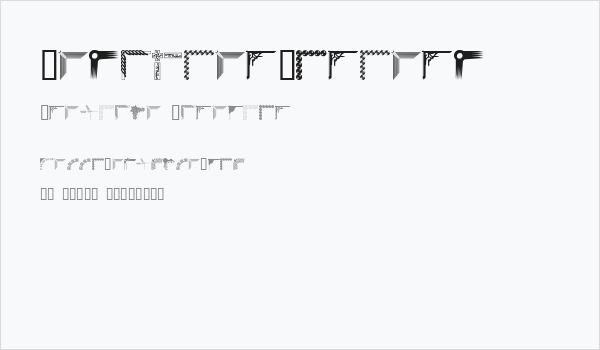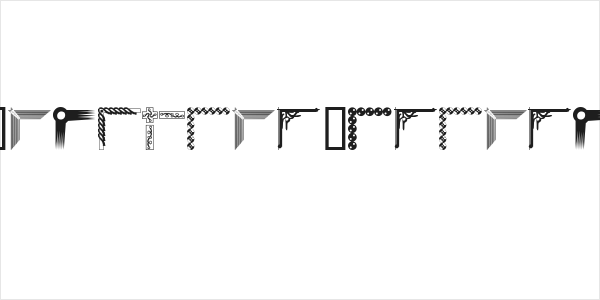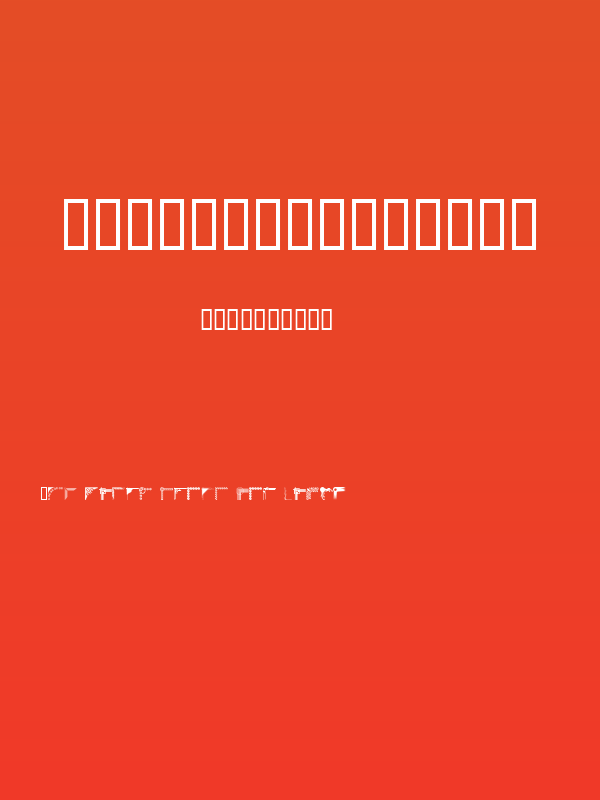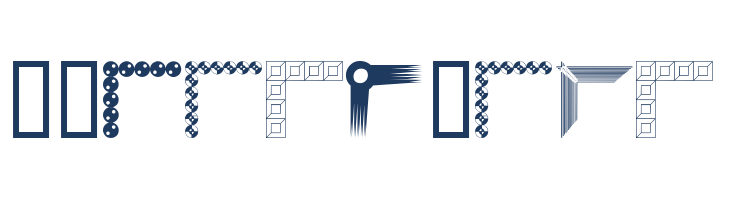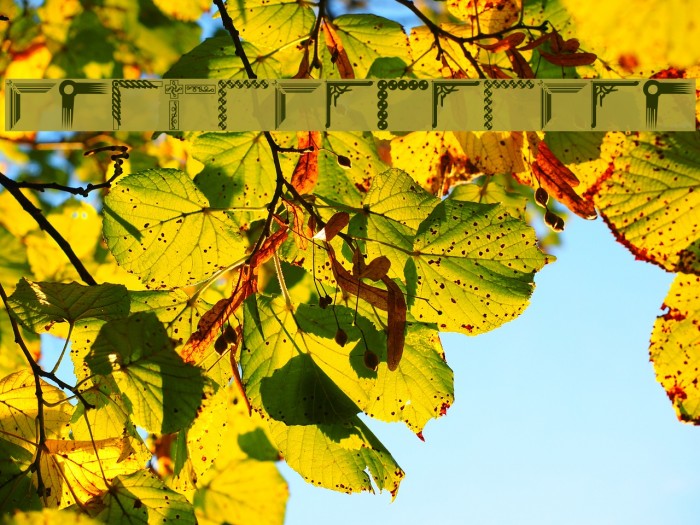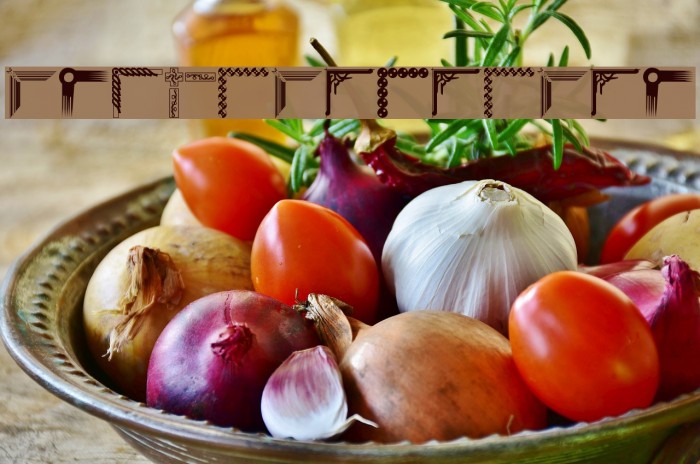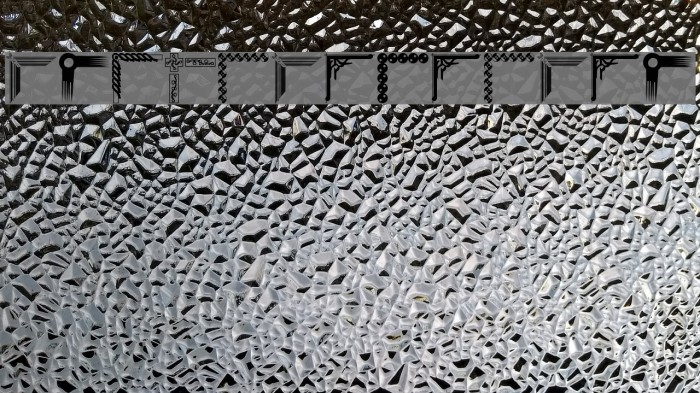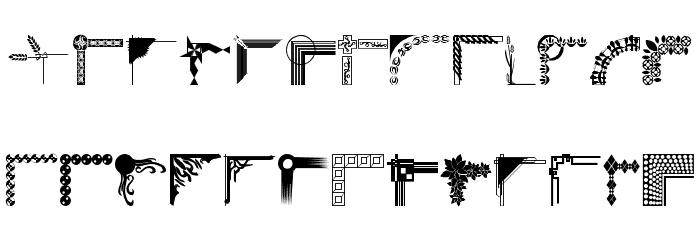
DesignerCorners Font
DesignerCorners Description
A decorative font featuring a variety of intricate and stylized corner designs, each glyph representing a unique ornamental corner element with motifs such as leaves, geometric shapes, and abstract patterns.
| Use Case | Borders, frames, embellishments, graphic design accents. |
| Proposed Projects | Invitations, certificates, borders for print or digital layouts, scrapbooking, decorative frames. |